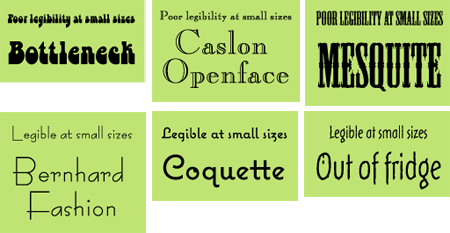
Think Outside the Font Box
Some typefaces are only for text and some are only for display, right? Not necessarily. Follow these tips and you'll be able to extend your type library.
Compared to the "old days," today's digital type technology gives users access to thousands of type designs with an ease that is nothing short of miraculous. Unfortunately, most digital typefaces only allow for one outline, or design, per character, not one design per point size as in metal type. This limitation means that today's type designers often create typefaces with a particular size range in mind.
Is there any way to get more out of a design than its designer intended? Often, yes. Even though most typefaces are categorized (officially or unofficially) as either text or display designs, you can still expand the potential range of many typefaces by choosing wisely and making some minor adjustments as you set the type.
This article will look at how to use text designs at display sizes and vice versa. These pointers will help you get the most -- and best -- use out of your fonts.
Think Big: Using Text Fonts at Display Sizes
To successfully set a text design at large sizes, follow these guidelines:
Figure 1. The same details that make ITC Oldbook look charmingly distressed at smaller sizes can appear forced and unnatural at large sizes.
Figure 2. Top: ITC Caslon No. 224 is an elegant, refined typeface at smaller sizes. Middle: When the same typeface is enlarged, the serifs and thin strokes appear thick and a bit clunky. Bottom: For large sizes, Big Caslon might be a better choice.
Figure 3. Gill Sans Heavy translates very well from text sizes to large-scale display use.
Think Small: Using Display Fonts at Text Sizes
Display faces, which are designed to work best in larger settings, can sometimes (but not always) be used successfully in smaller sizes. Here are some guidelines that will help you achieve the best results:
Bear in mind that not every display font will be a good choice for text-sized treatment (Figure 4). Be especially cautious with formal scripts and calligraphic fonts, which vary in their ability to survive "downsizing." Many lose readability at small sizes, with design features that grow busier and fussier the smaller they get.
Figure 4. In this assortment of display fonts, three don't translate well to small sizes, and three do.
Similarly, connecting scripts can be problematic at small sizes: The "shrinking" process can make them look tight and lose readability, and their spacing can't be opened up to compensate. Proceed with extreme caution.
The key to making the transition from large to small is to engage both your brain and your eye in making an intelligent decision. Be sure to create and print out samples in the specific sizes and typefaces you're considering before making your final font selections. In short: always look before you take a typographic leap!